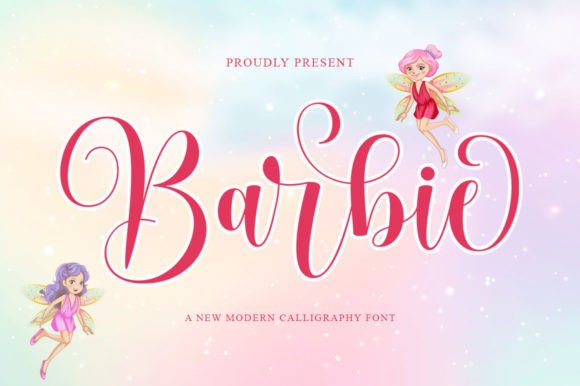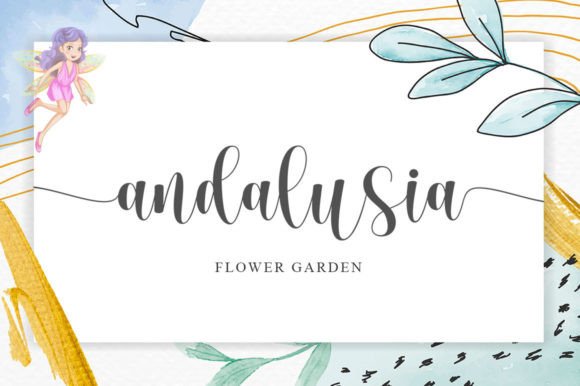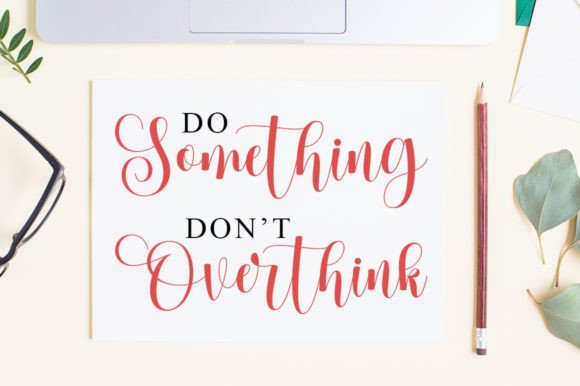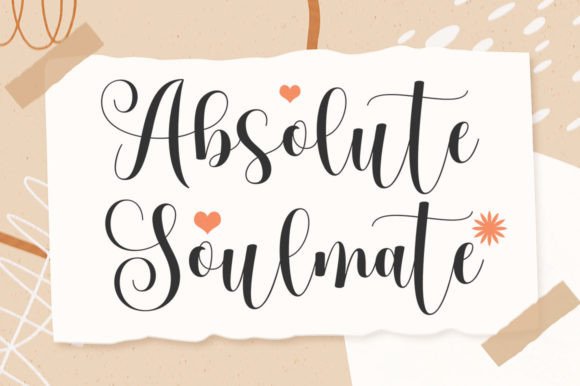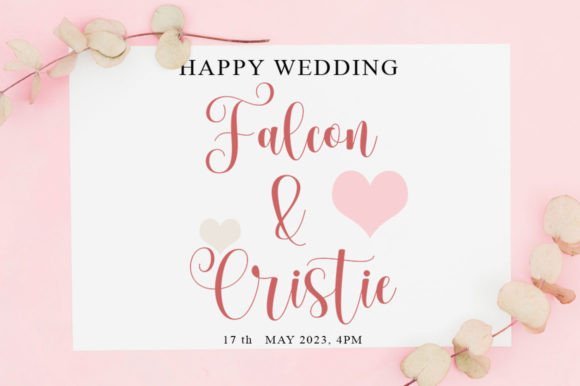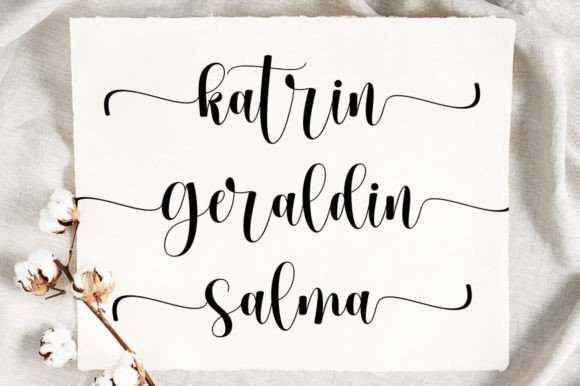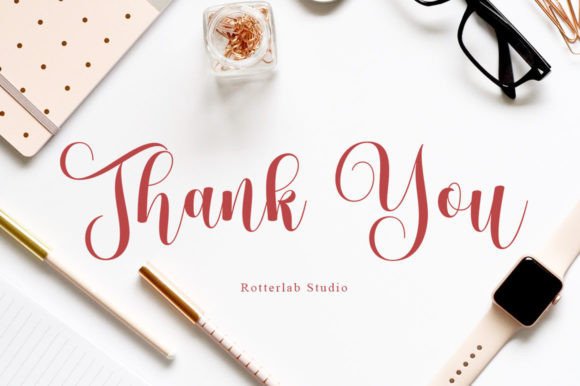
Barbie
Barbie is sweet, bouncy and swirly callygraphy script. Meanwhile, this script is still maintaining its elegance.
Barbie is PUA-Encoded, with many swirly extra glyphs to give many options in designing.
Barbie is such a fabulous font for any elegant projects, such as wedding invitation, branding, logo, lettering, crafting, and so on.
+Multilingual glyphs.